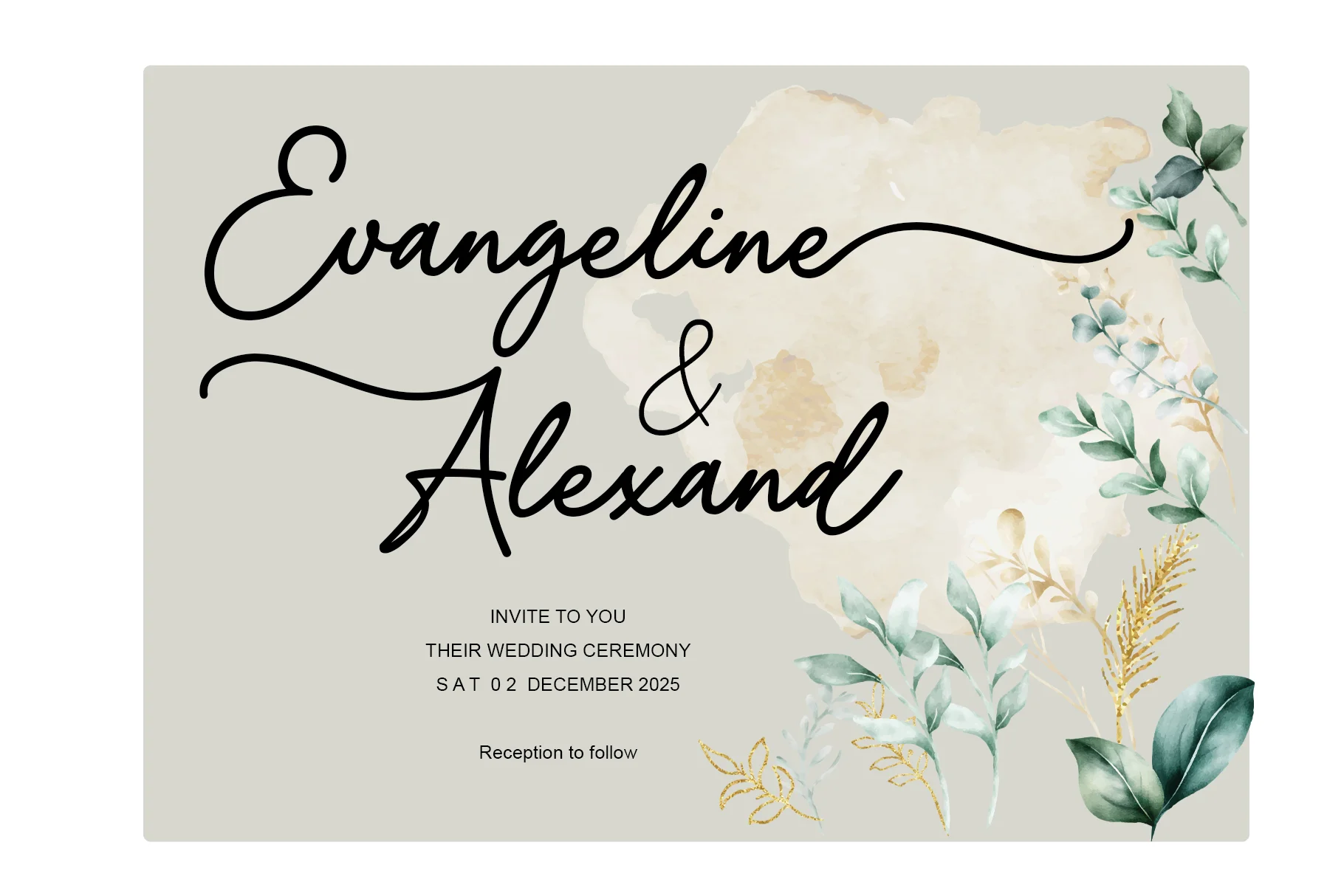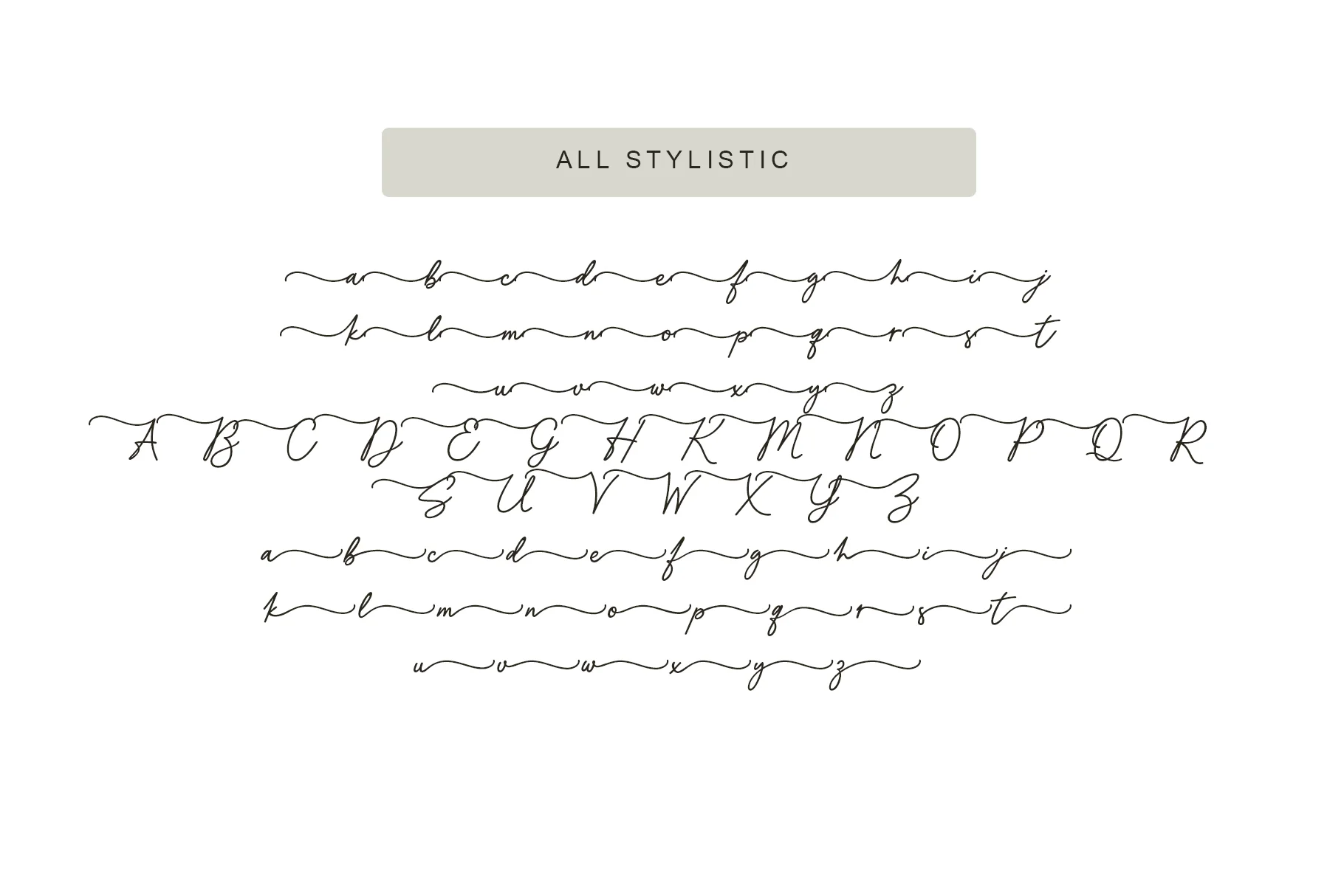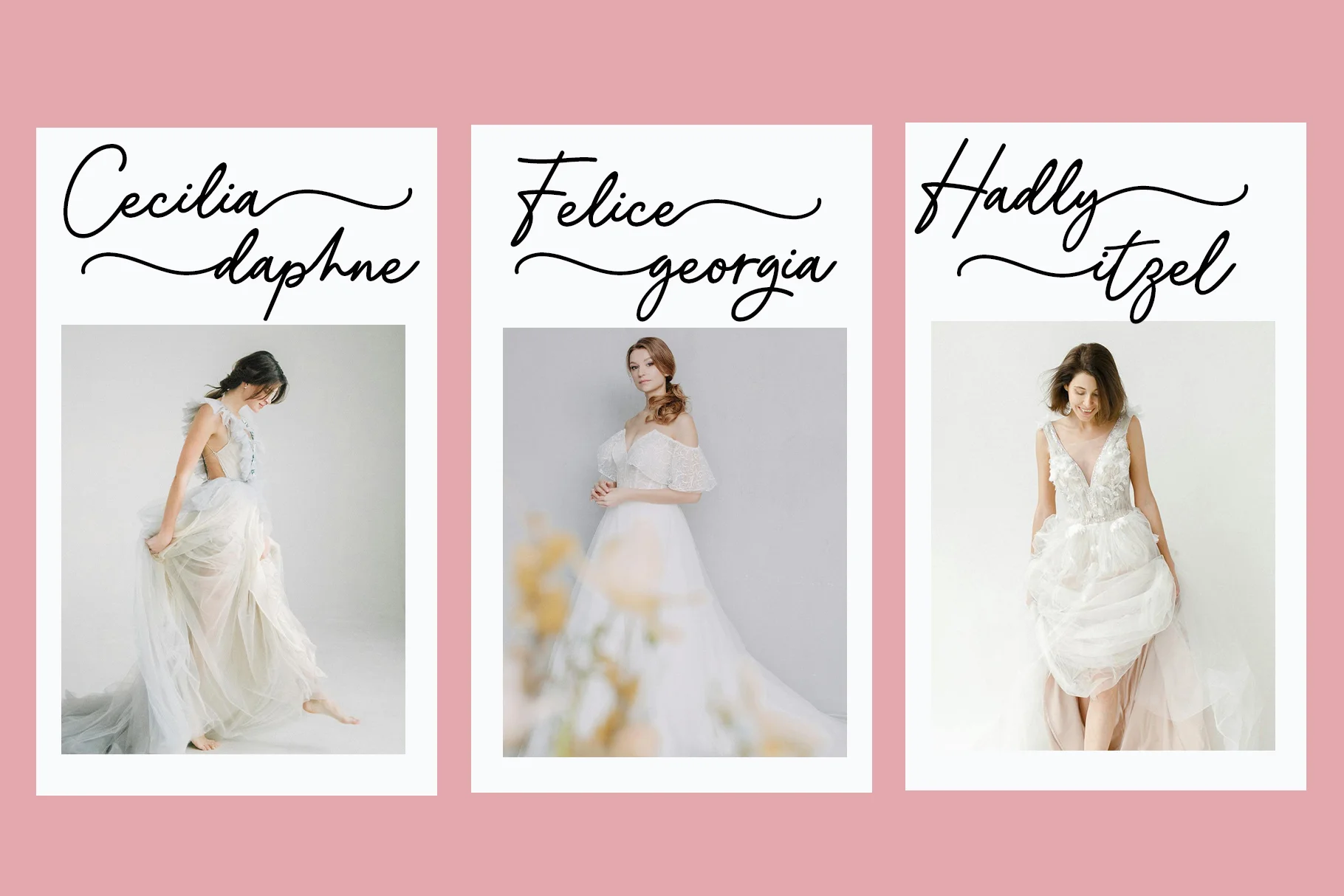
Bleach Pink
**Bleach Pink** will perfect for many project: book, magazines, logo, branding, photography, quotes, blog header, poster, advertisements, etc.
**Feature**
* Uppercase
* Lowercase
* Numeral
* Functional
* Stylistic